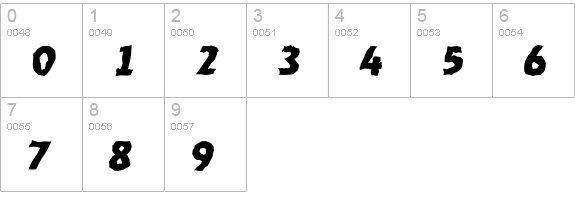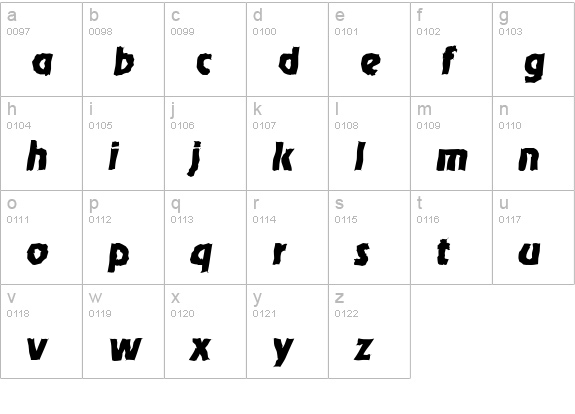
OnStageRandom-Xbold-Italic Font Details
OnStageRandom-Xbold-Italic is a distinctive, italic variant in the OnStageRandom typeface family \xE2\x80\x94 well suited to design and typography projects.
Introducing OnStageRandom-Xbold-Italic font, a bold and dynamic typeface that exudes energy and modernity. Designed for the stage, this font is perfect for making a statement and standing out from the crowd. Its unique and eye-catching italic style adds a touch of flair to any design project. Whether you're creating posters, banners, or branding materials, OnStageRandom-Xbold-Italic font will elevate your work to the next level. And the best part? This stunning font is available for free download at FontsMarket.com. Don't miss out on the opportunity to add this versatile and impactful font to your collection today. Let OnStageRandom-Xbold-Italic font take center stage in your designs and captivate your audience like never before.